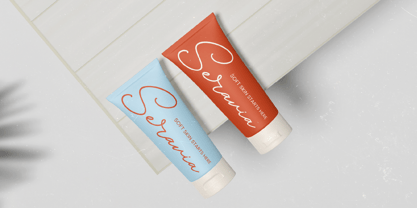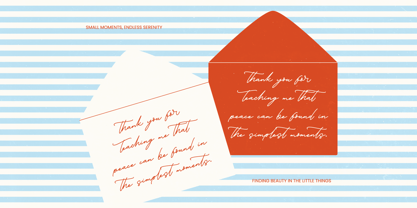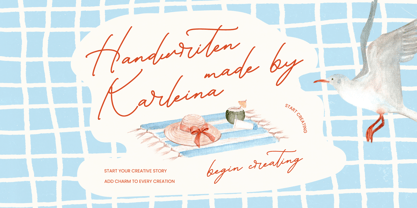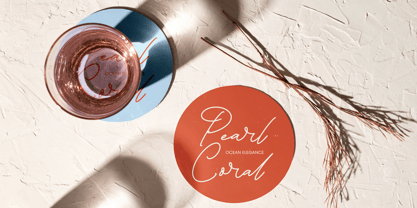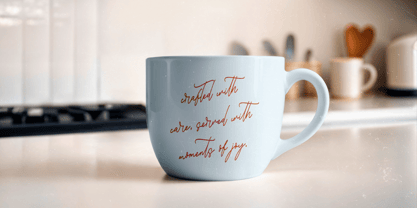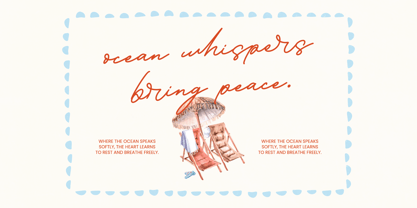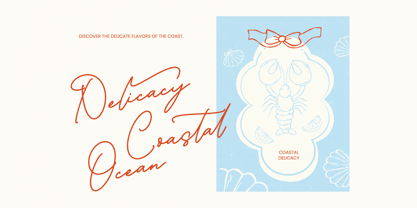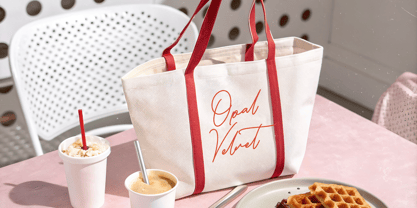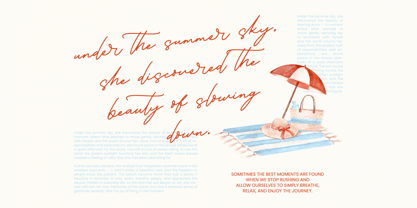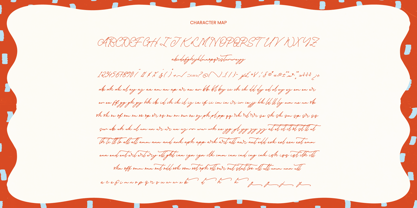
Handwritten Karleina
Handwritten Karleina - Handwritten Font
Elevate your creative vision with a touch of organic elegance. Handwritten Karleina - Handwritten Font is a masterclass in authentic script design, offering a fluid and natural aesthetic that mimics genuine penmanship. Its graceful strokes and effortless flow provide a sophisticated yet approachable character, perfect for designers looking to infuse their work with a personalized touch. By balancing artistic flair with high legibility, this typeface ensures your message remains clear while radiating a warm, hand-crafted charm.